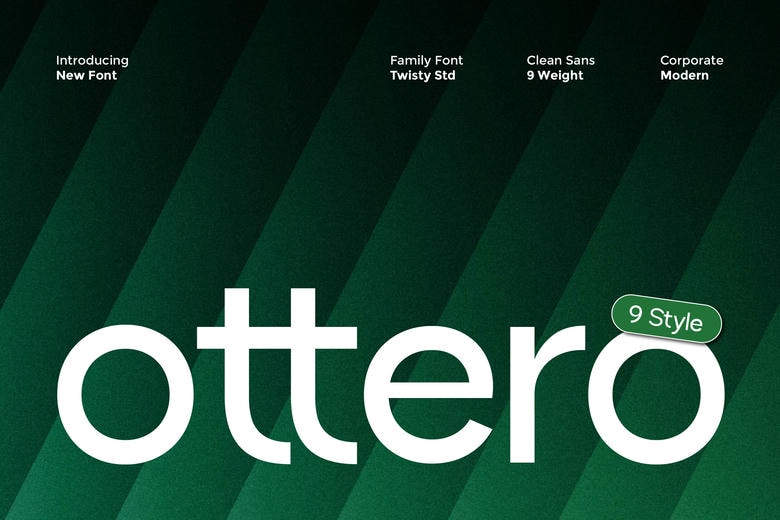
Ottero Font
Ottero is a clean sans-serif font designed for clarity, consistency, and a modern, simple look in any project. With nine carefully crafted styles, Ottero helps you build a strong visual hierarchy and maintain a unified, professional appearance.
Ottero’s clean lines, balanced shapes, and simple structure make it easy to read. Its minimalist design keeps details clear and neat, so it works well for bold headlines and longer text.
Ottero Sans Serif Font Family